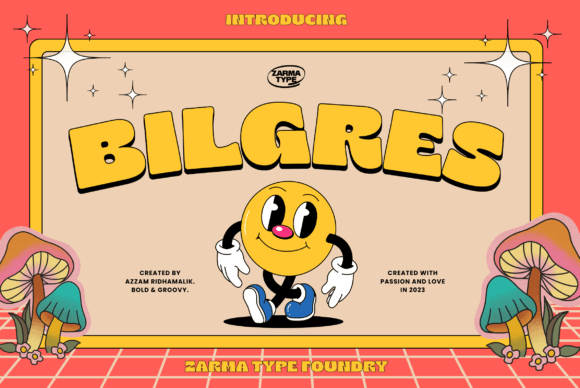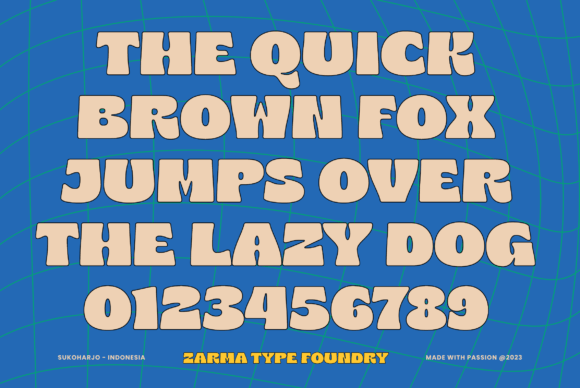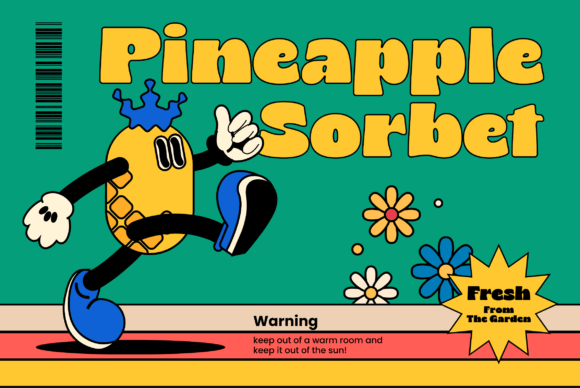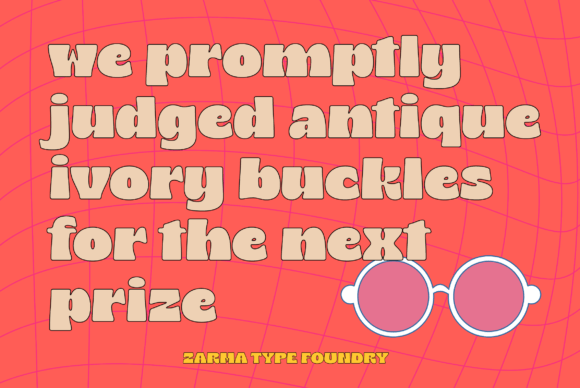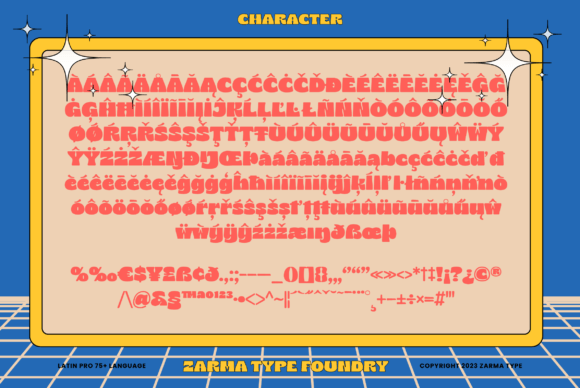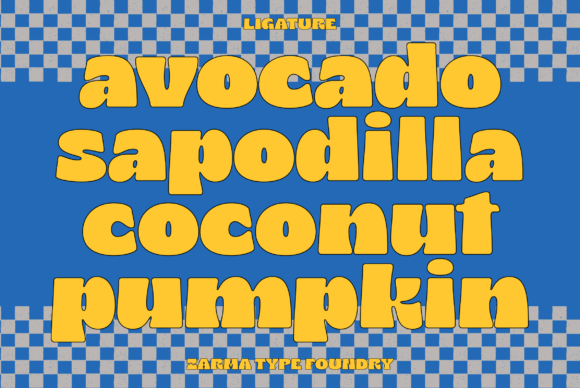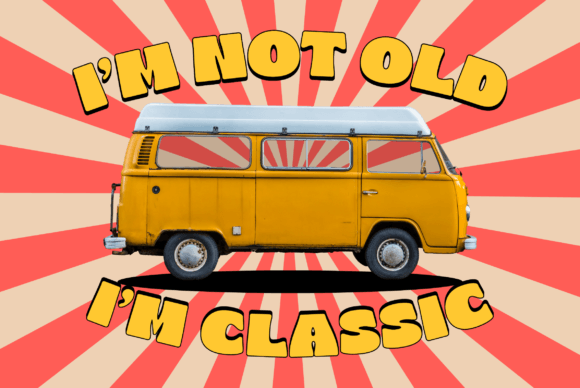
Bilgres Font
Introducing Bilgres, a hippie-themed font that combines strong and gentle shapes with rounded edges, giving it a unique and playful style. This bold and wide font is perfect for creating eye-catching designs that stand out, whether you’re designing posters, album covers, logos, or social media graphics.
If you’re looking to create designs that are both hippie and modern, Bilgres is the font for you. Its distinct and playful style will elevate your designs to the next level, making them pop and catch the eye.